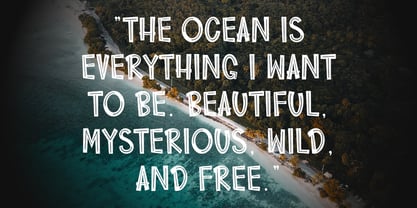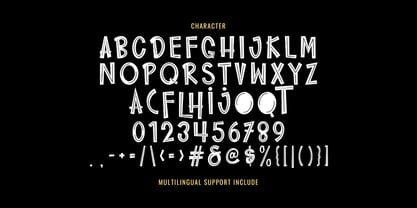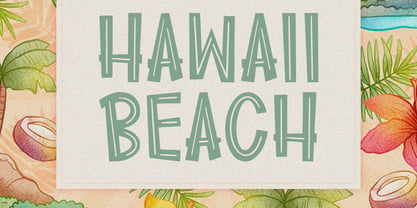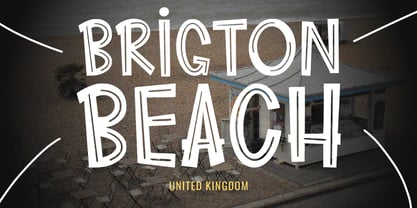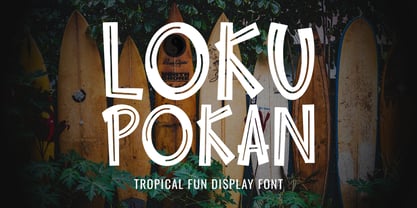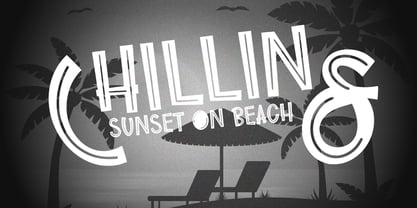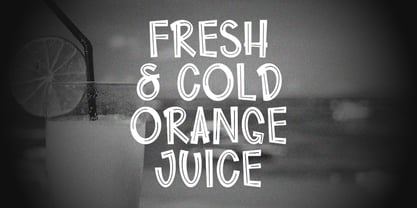
MC Loku Pokan
by Maulana Creative
The MC Loku Pokan Font Family was designed by Gilang Maulana and published by Maulana Creative. MC Loku Pokan contains 1 styles. More about this family
Bring the sunshine and fun of the tropics to your designs with Loku Pokan! This playful, all caps display font is bursting with personality, featuring a hand-drawn, bouncy style that captures the relaxed, carefree spirit of a Hawaiian beach holiday. Loku Pokan is perfect for any project that needs a dose of laid back charm and tropical flair. Key Features: - Tropical and Playful Style: Fun, bold, and energetic, ideal for summer themes. - All Caps Design: Strong presence, excellent for headlines and logotypes. - Hand Drawn Feel: Adds a unique, authentic, and organic touch. - Multilingual Support: Ready for international projects Loku Pokan is the perfect choice for: - Logotypes and branding for beach resorts, juice bars, or tropical lines. - Social media graphics for summer events and festivals. - For food, drinks, or beauty products with a fruity or tropical base. - Children's, comics, and fun, playful titles. Dive into the good vibes and make your next project a tropical success with Loku Pokan!
Designers: Gilang Maulana
Foundry: Maulana Creative